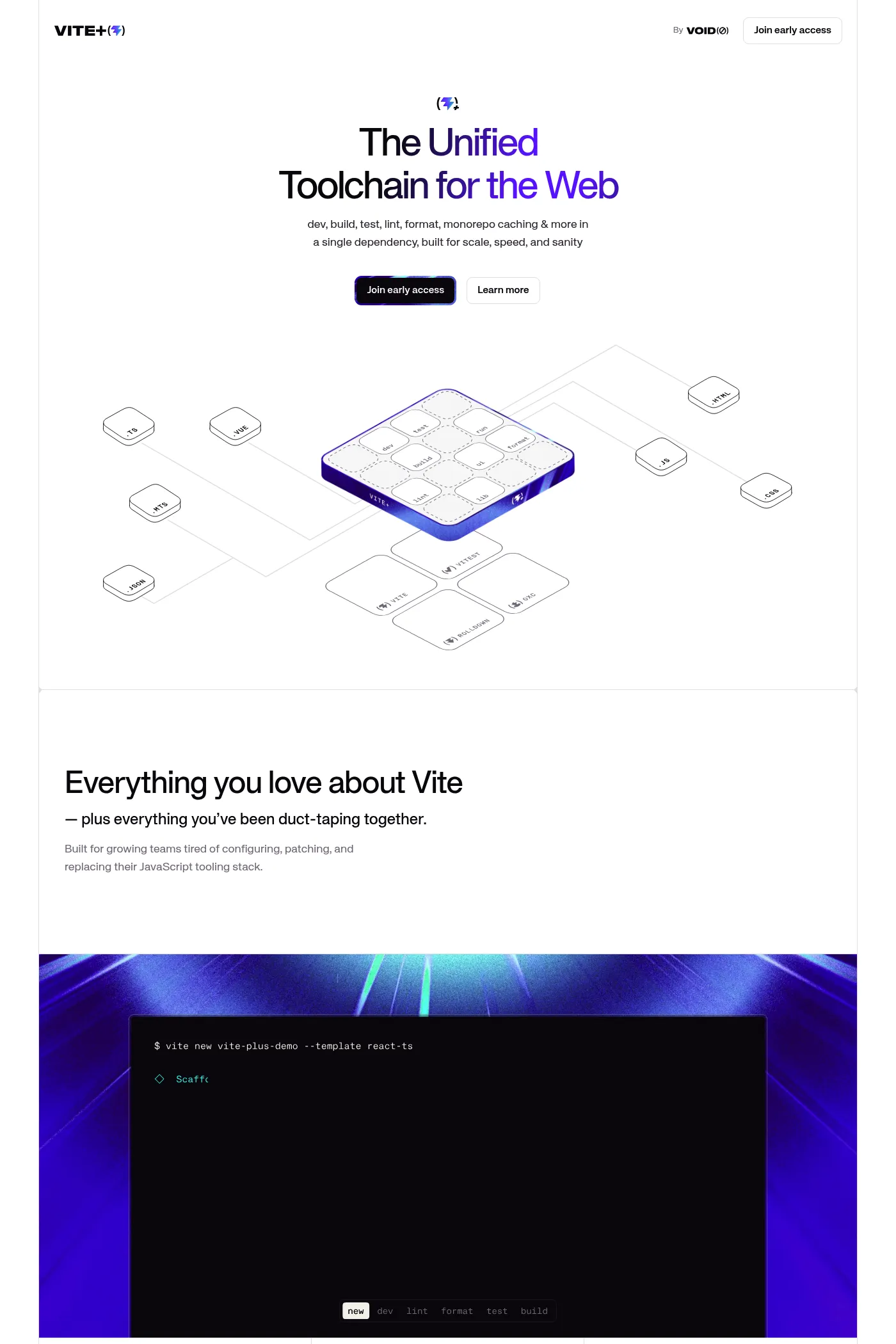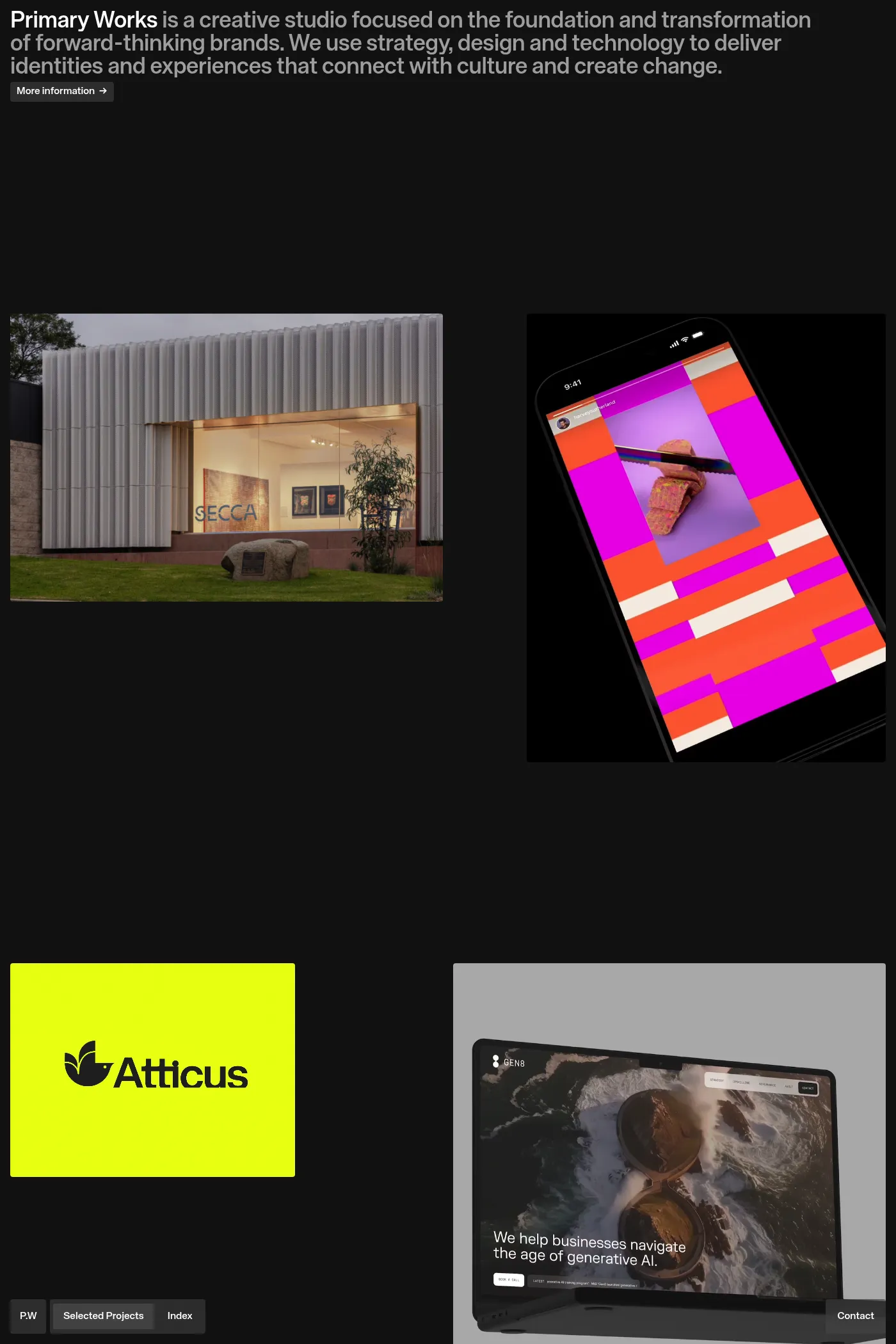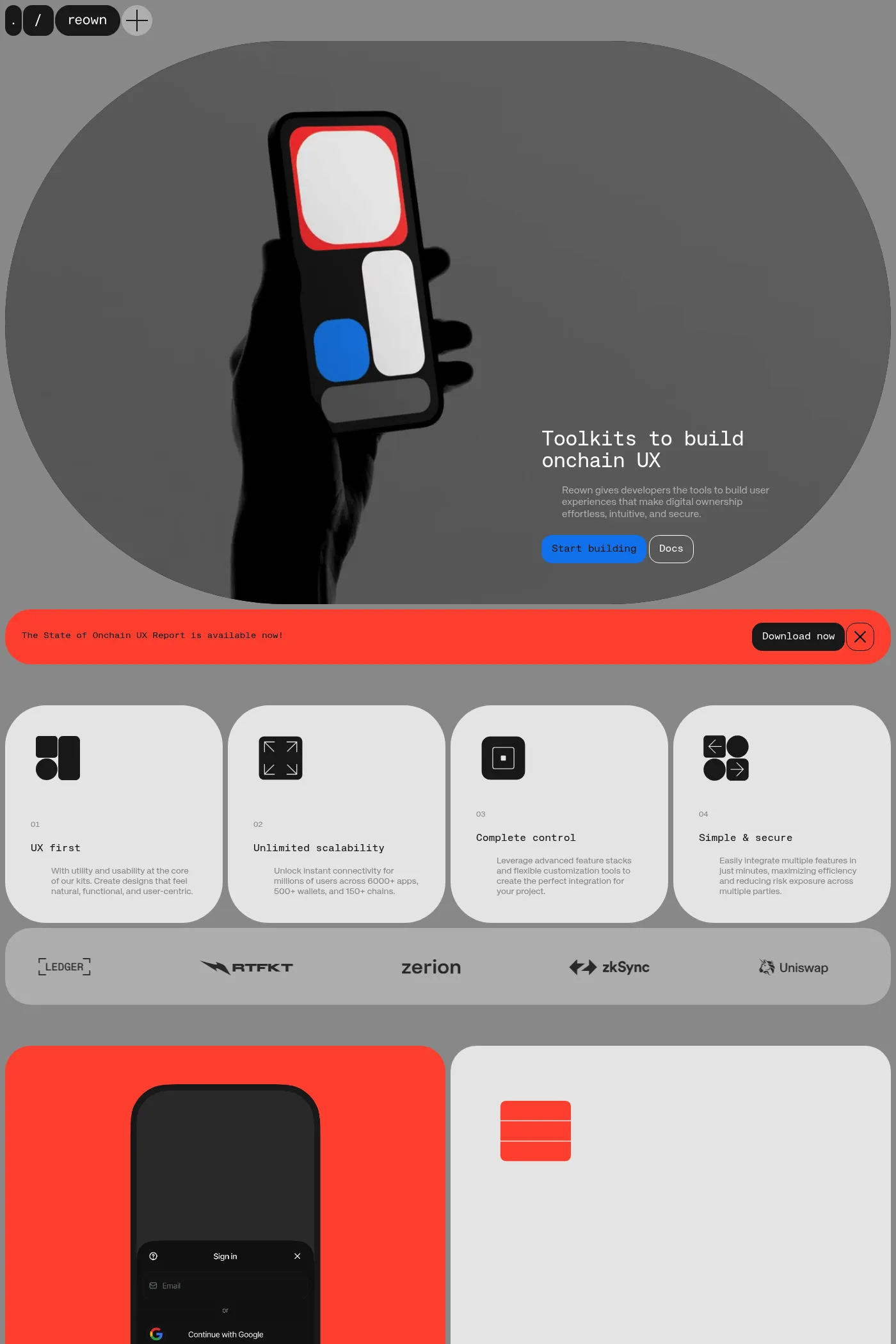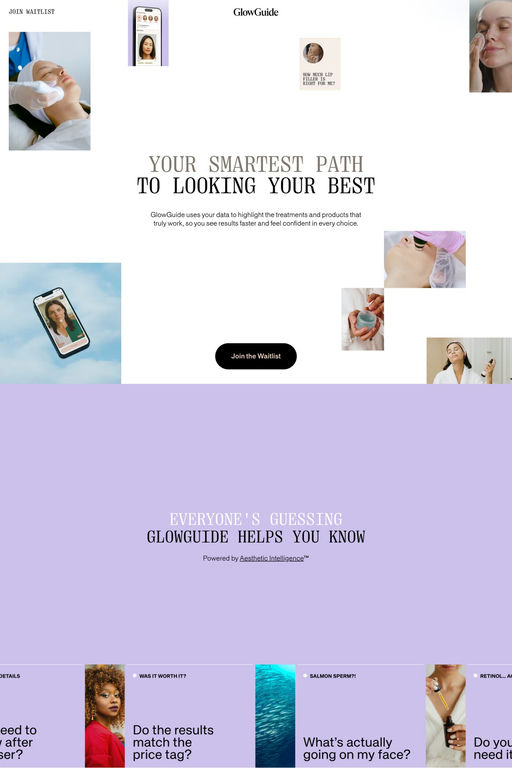
KH Teka is a sans-serif typeface from KH Type.
KH Teka is a modern grotesque with a rigid approach to how curves, details and metrics are applied. It is designed in close collaboration with the brilliant minds at Kurppa Hosk, which has heavily informed the design into being a versatile workhorse of a typeface. Truly a “by designers, for designers” kind of thing. It comes in five weights with corresponding italics and has a wide range of opentype features. The character set is extensive and counts in on 870 glyphs, including a wide variety of arrows, currency symbols and number variations.